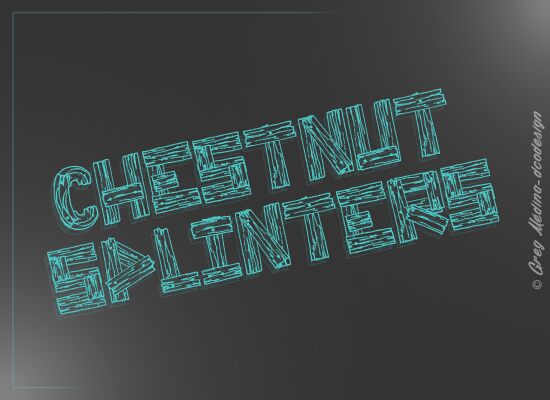
Chestnut Splinters is a bold display font designed by Gregory Medina of dcodesign. Its western style is perfect for creating designs with a rustic, classic feel. From logos to signs, this font brings an old-timey charm to any project. Chestnut Splinters is also great for crafting titles and headlines that stand out and draw attention. Make your work stand out with this unique font!